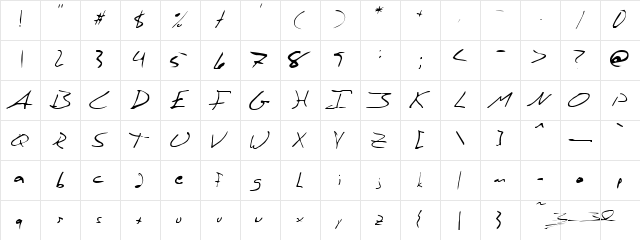
Rasputin 's Handwriting
Design Context for Rasputin Typeface
Rasputin flows with the natural rhythm of handwritten lettering, making it ideal for designs that call for warmth and personal expression.
Font Pairing: Combine Rasputin with a simple geometric sans for maximum contrast — the tension between flowing curves and clean structure is a classic typographic pairing.
Pro Tip: Use Rasputin for short runs of text — names, titles, or taglines. Extended body copy in script faces tires the eye quickly.